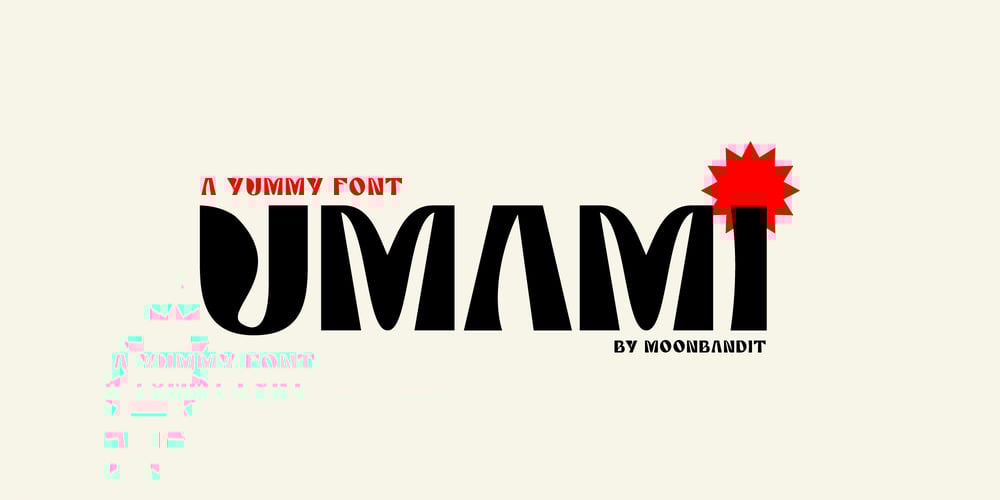
MBF Umami
MBF Umami font
MBF Umami Font Family was designed by Bramaji Dipa Manggala and published by Moonbandit. MBF Umami contains 1 styles and family package options. Introducing Umami, a playful bold font. It’s quirky construction is inspired by the flavour of all things tasty and good. Perfect for headlines, title, display, logo and many more.